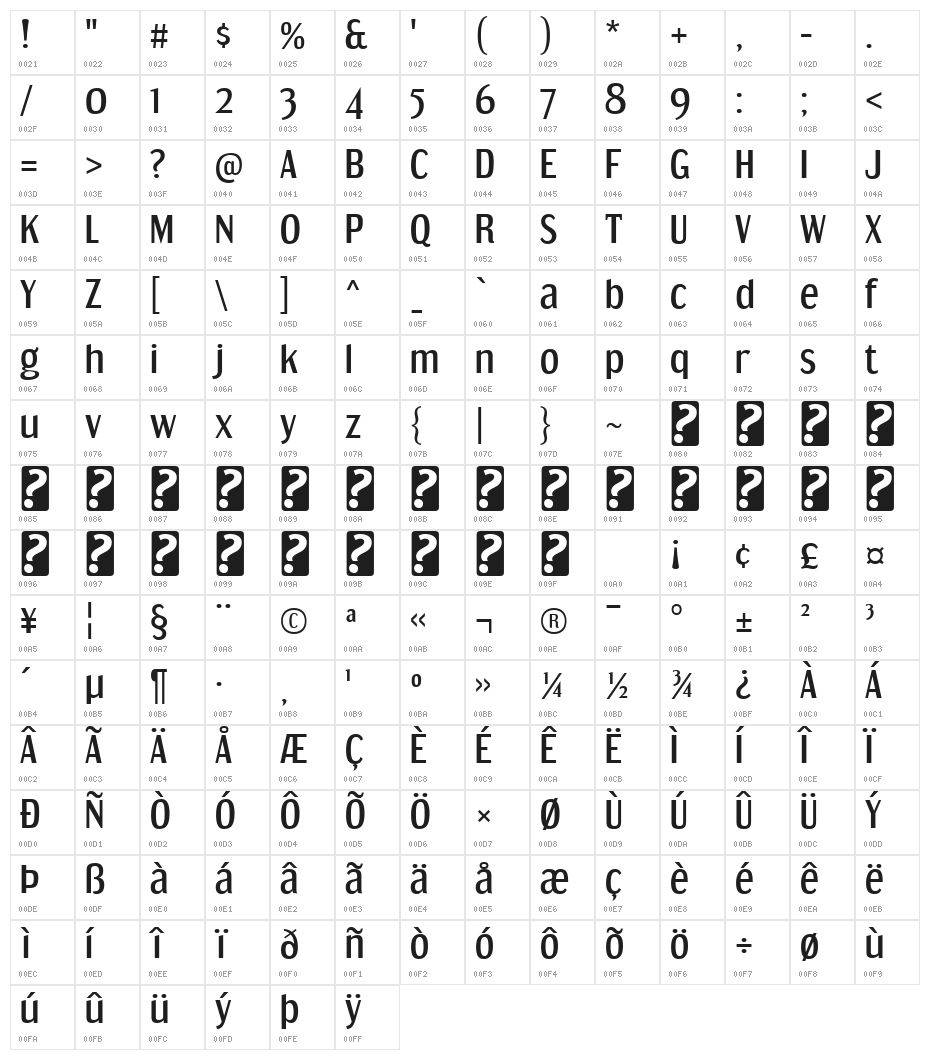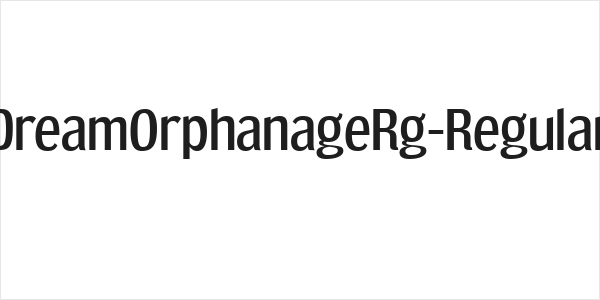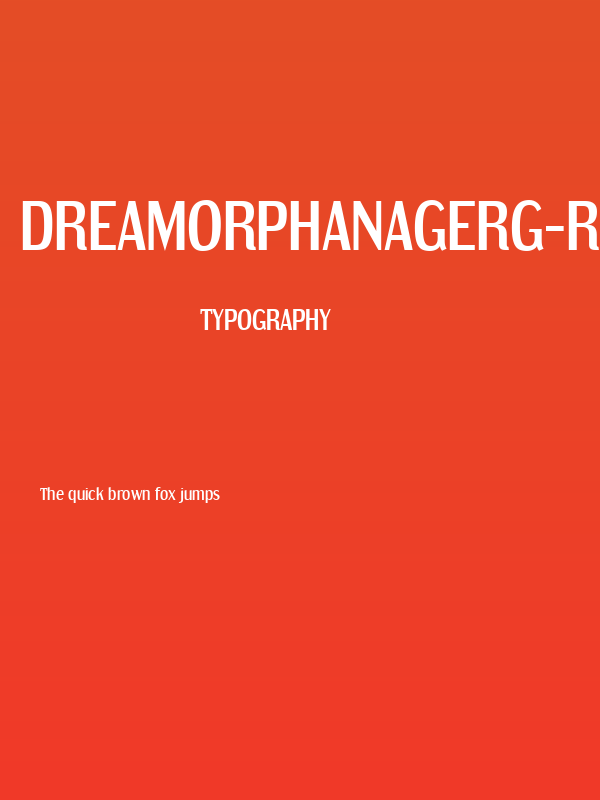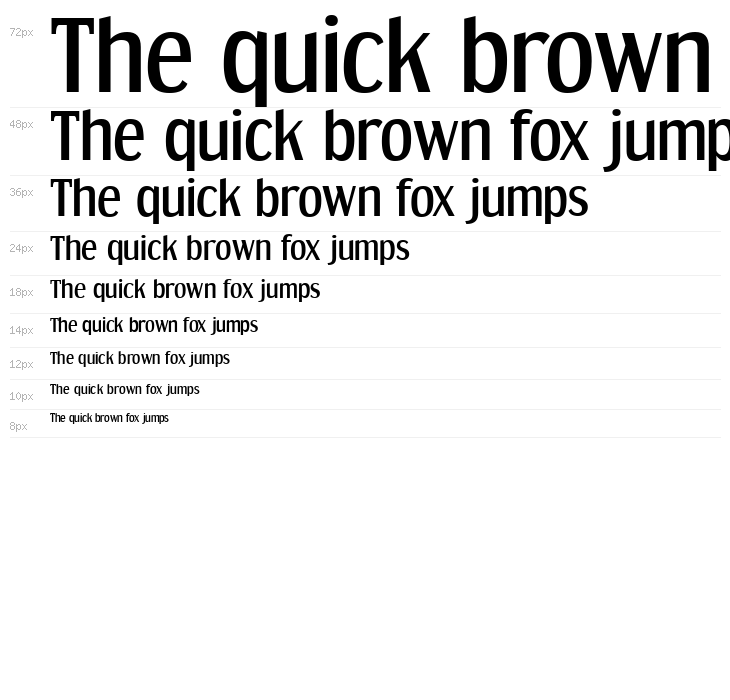
DreamOrphanageRg-Regular Font
DreamOrphanageRg-Regular Description
This font features a modern and clean sans-serif design with a balanced structure. The uppercase letters are bold and assertive, while the lowercase letters maintain a consistent and harmonious flow. The numerals are clear and easily distinguishable, making them suitable for various applications. Special characters are well-integrated, ensuring versatility in usage. The overall appearance is sleek and professional, with a touch of elegance that makes it suitable for both digital and print media.